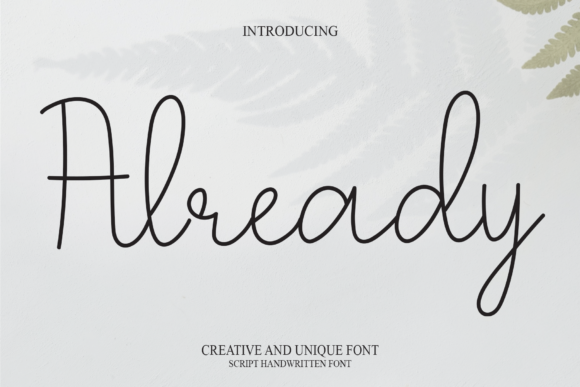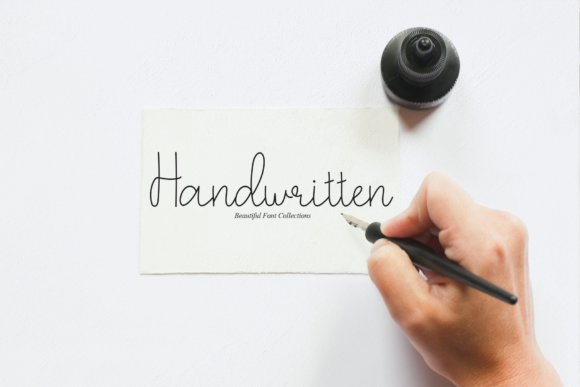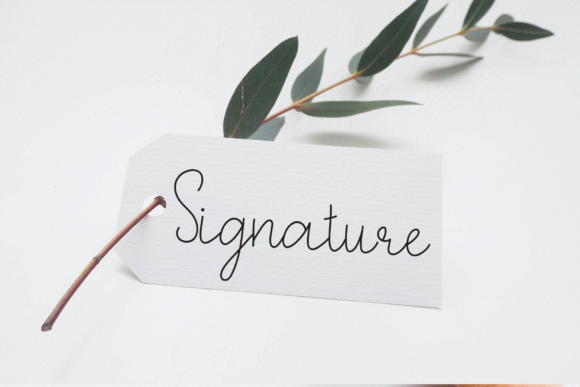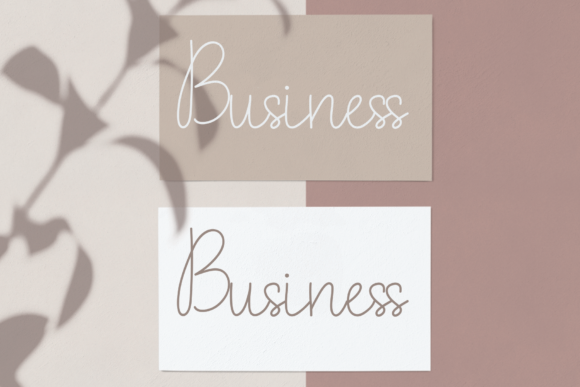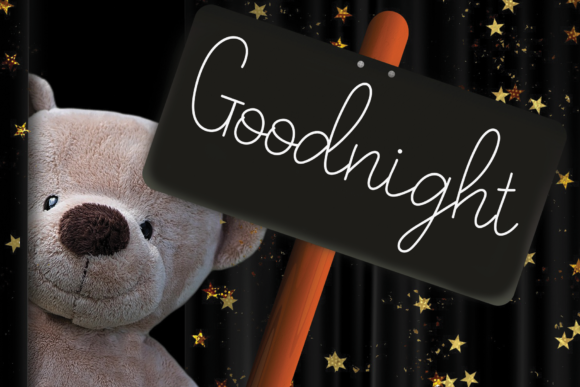
Already Font
About Already Font
Already font epitomizes elegance with its contemporary script font and impeccable form. Striking a perfect balance between thinness and boldness, this font exudes sophistication while offering a varied and balanced appearance. Crafted to elevate the aesthetics of any project it adorns, Already font brings a touch of refinement and versatility to your designs.
With its meticulously crafted letterforms and harmonious strokes, Already font radiates elegance and modernity. Its contemporary feel lends a fresh and stylish vibe to any design, while its perfect form ensures readability and visual appeal across a wide range of applications.
Versatility is a hallmark of Already font, making it a versatile choice for various design projects. Whether it’s used for branding, advertising, invitations, or packaging, this font adds a touch of sophistication and professionalism to every application.
The moderate weight of Already font strikes a delicate balance, making it neither too thin nor too bold. This balanced approach ensures that the font remains versatile and adaptable to different design styles and aesthetics, adding depth and character to your projects without overwhelming them.
Whether used for digital or print media, Already font enhances the beauty of your creations with its elegant script style. Its refined appearance brings a sense of class and sophistication to logos, headlines, and promotional materials, making your brand stand out with timeless elegance.
Overall, Already font is a testament to timeless elegance and contemporary style. With its perfect form, balanced weight, and varied design elements, it adds a touch of sophistication to any project, enhancing its visual appeal and leaving a lasting impression on viewers.